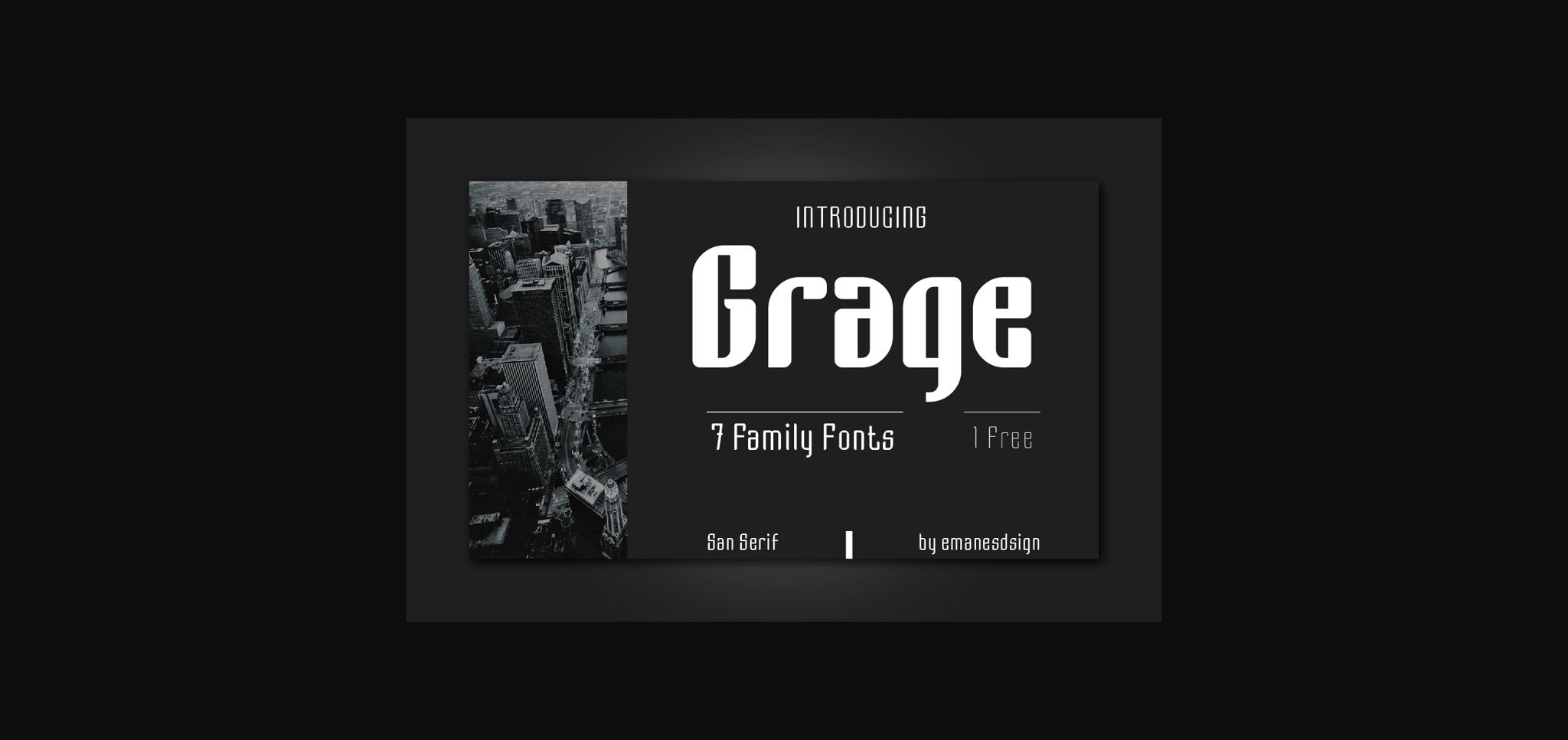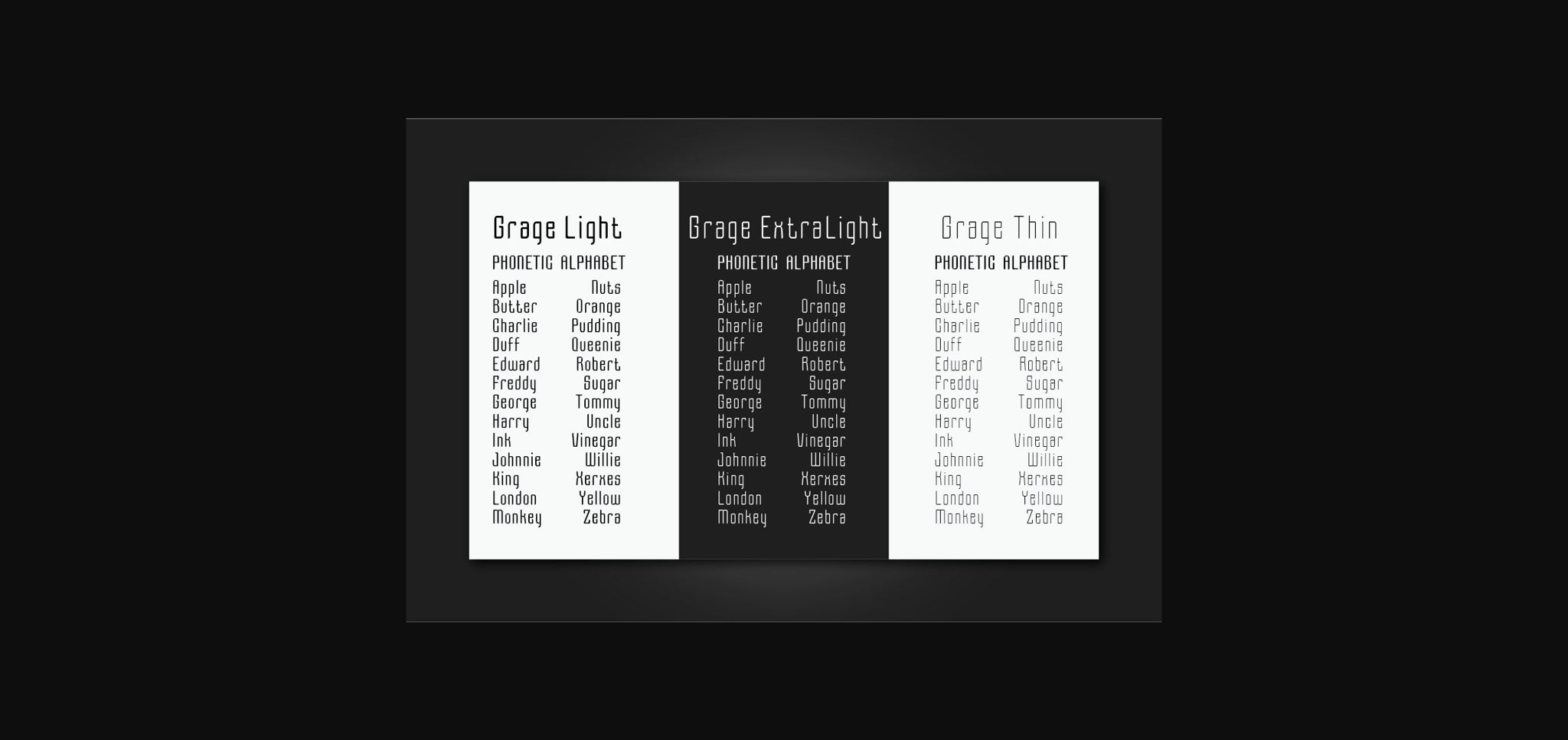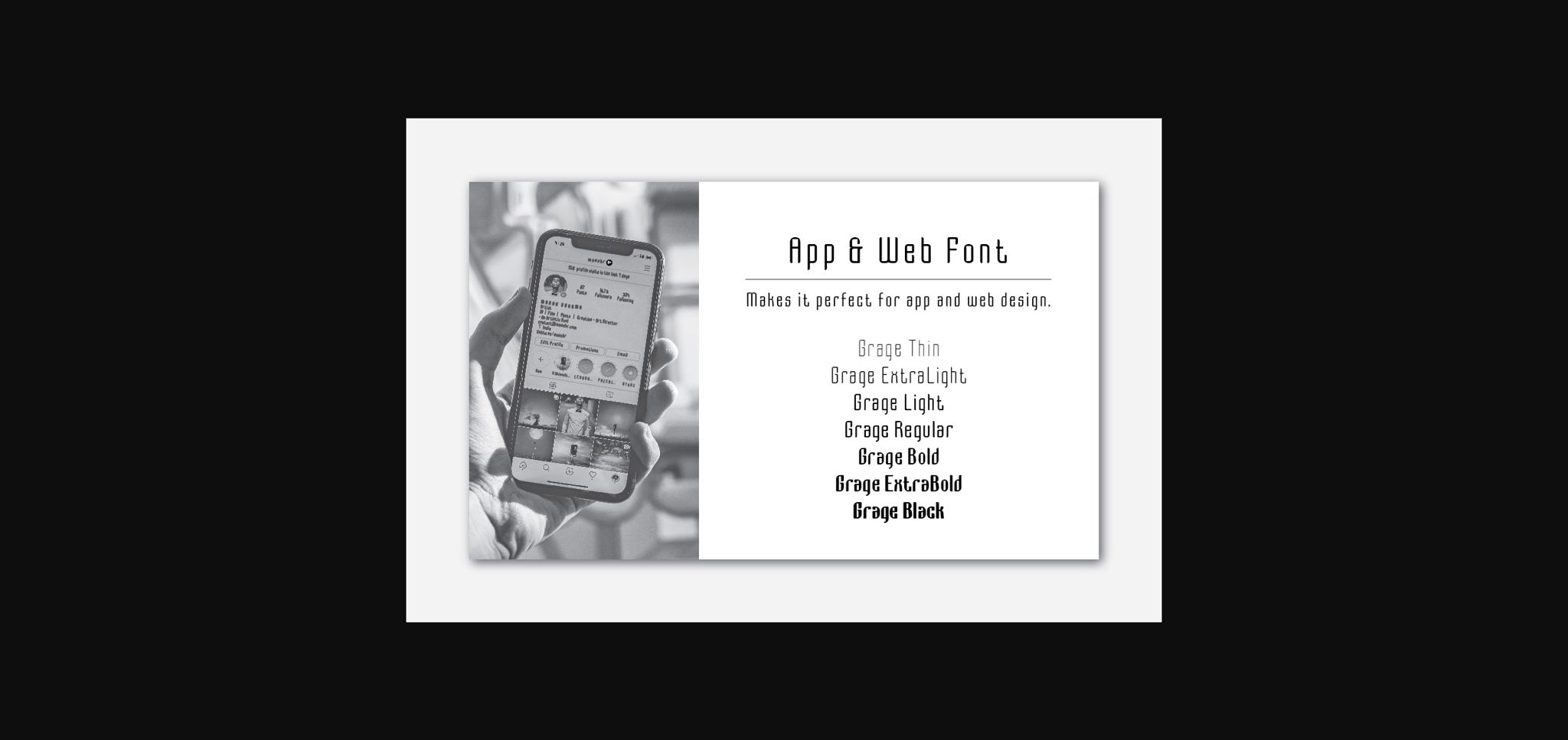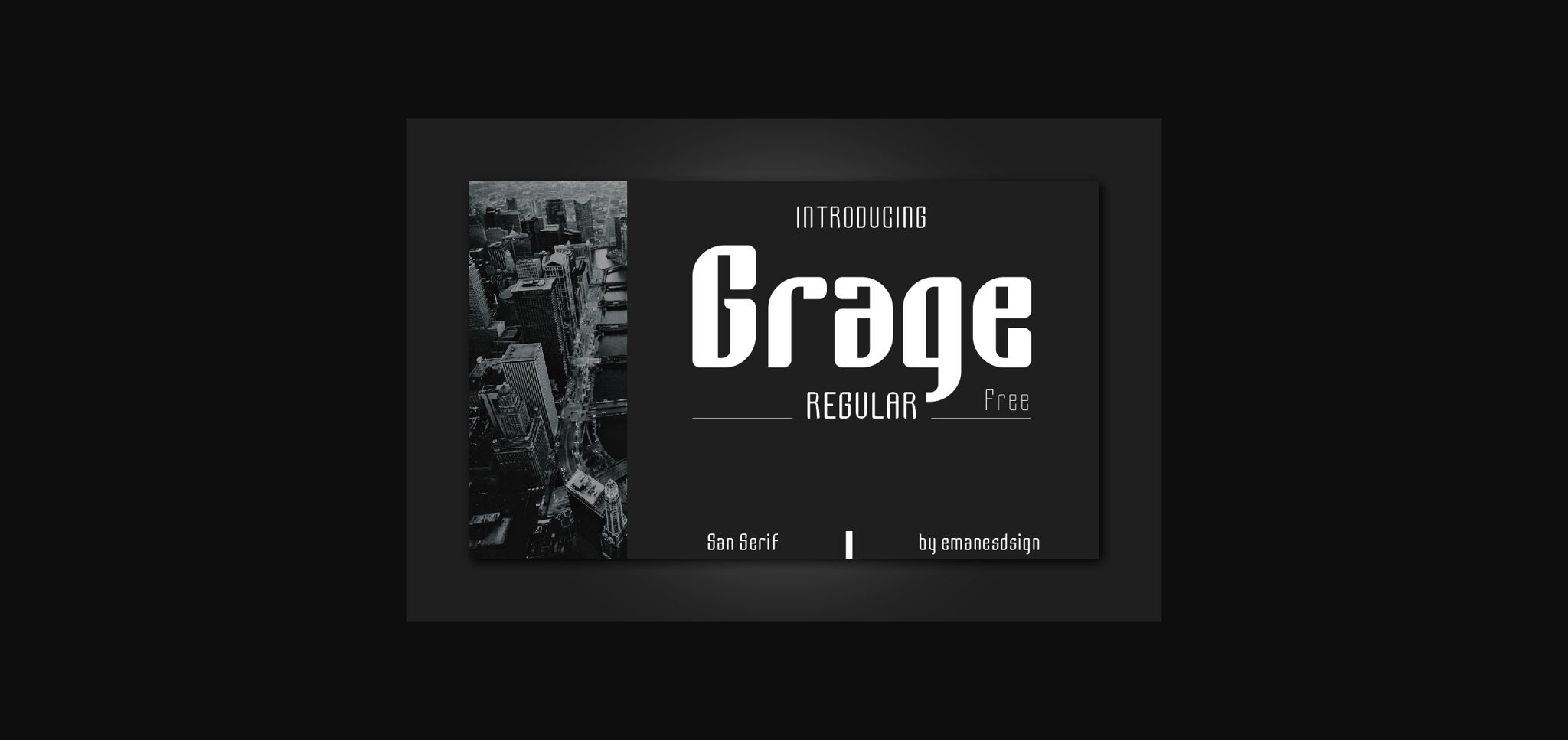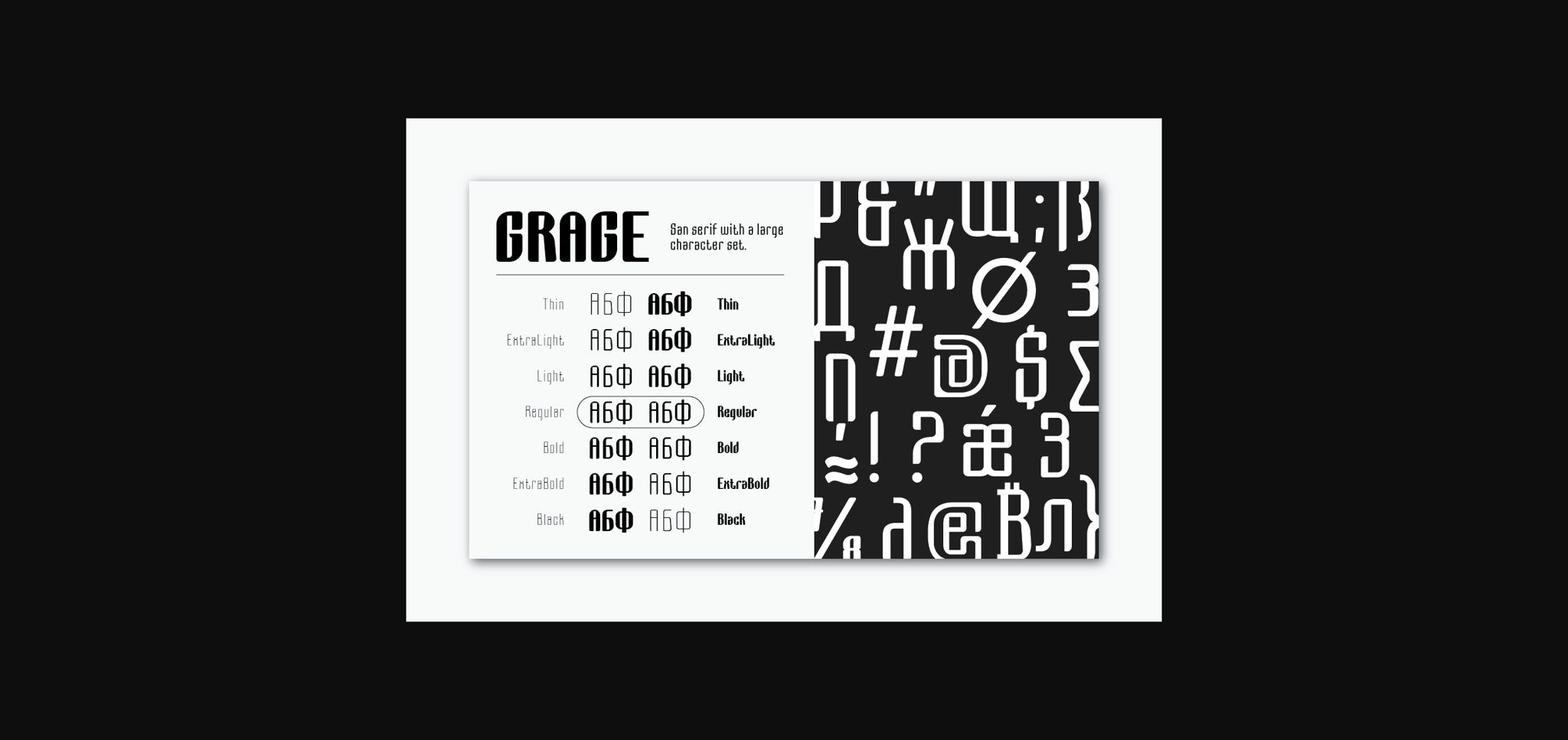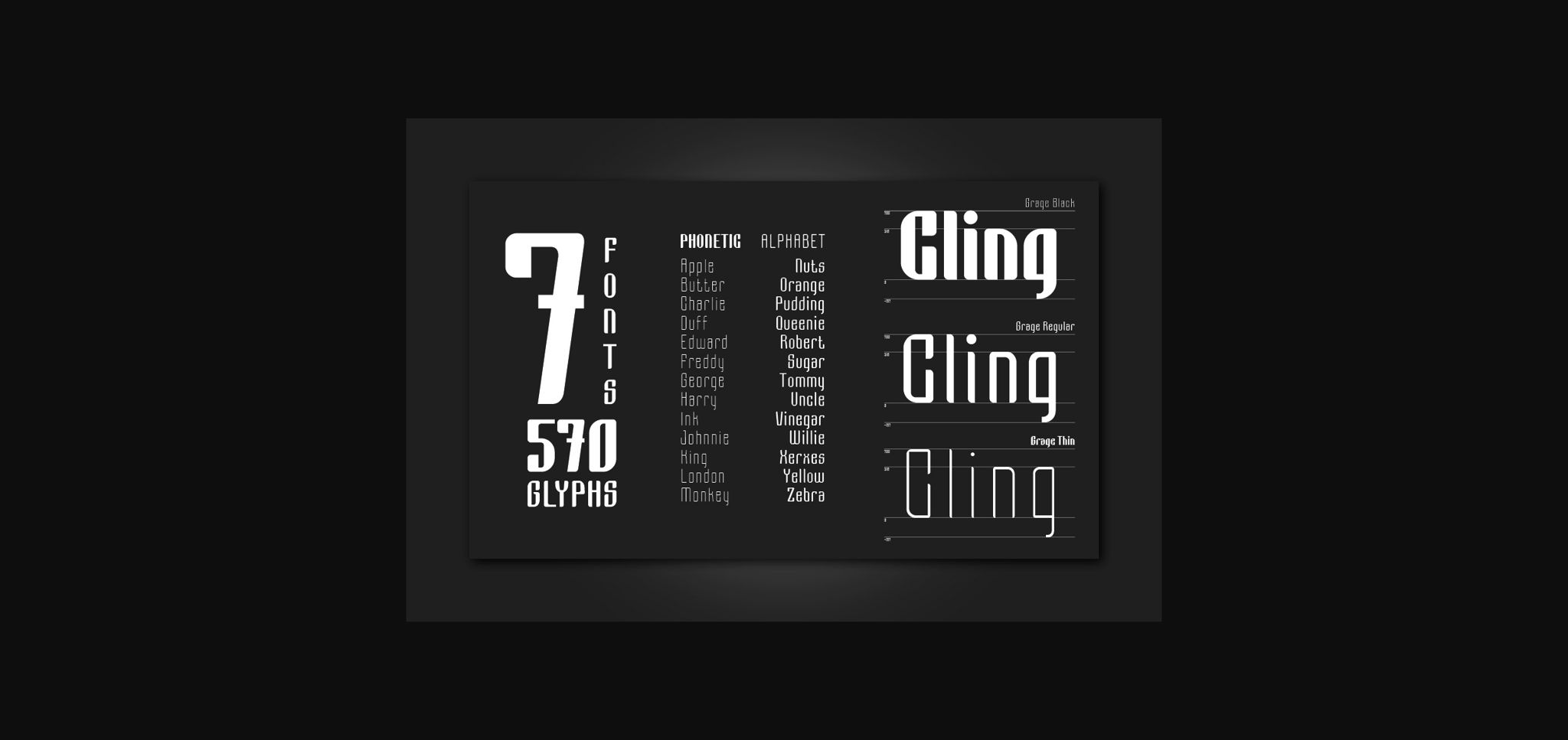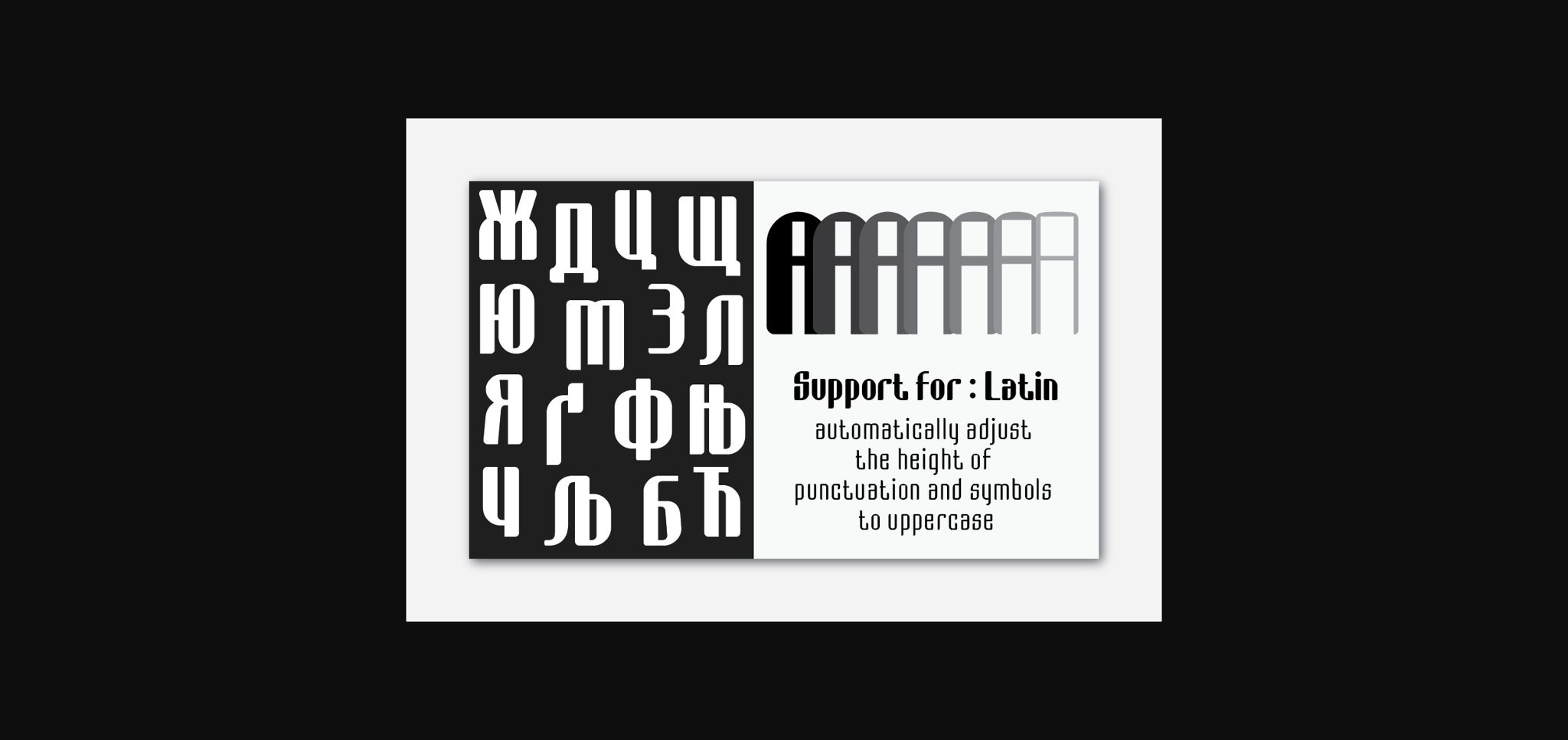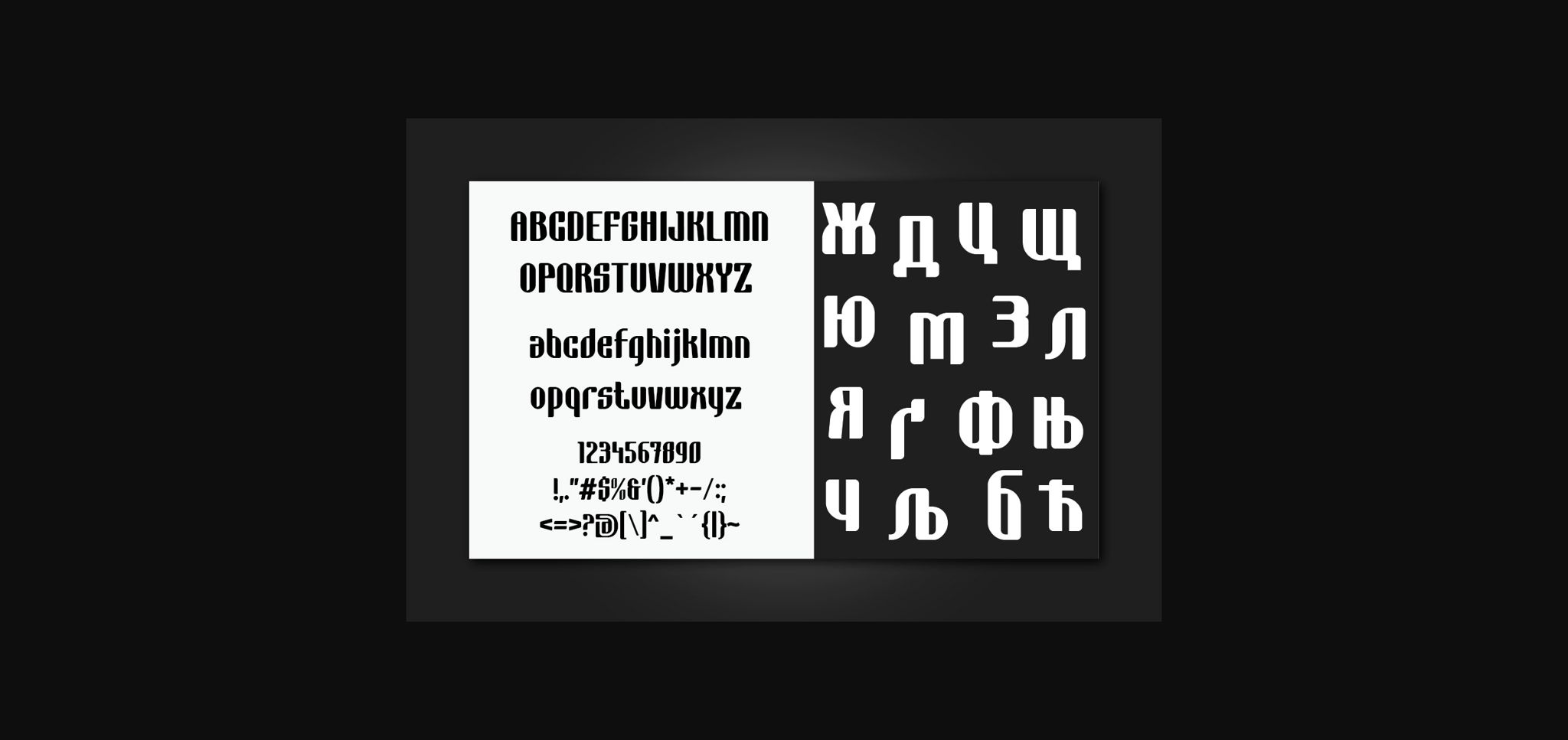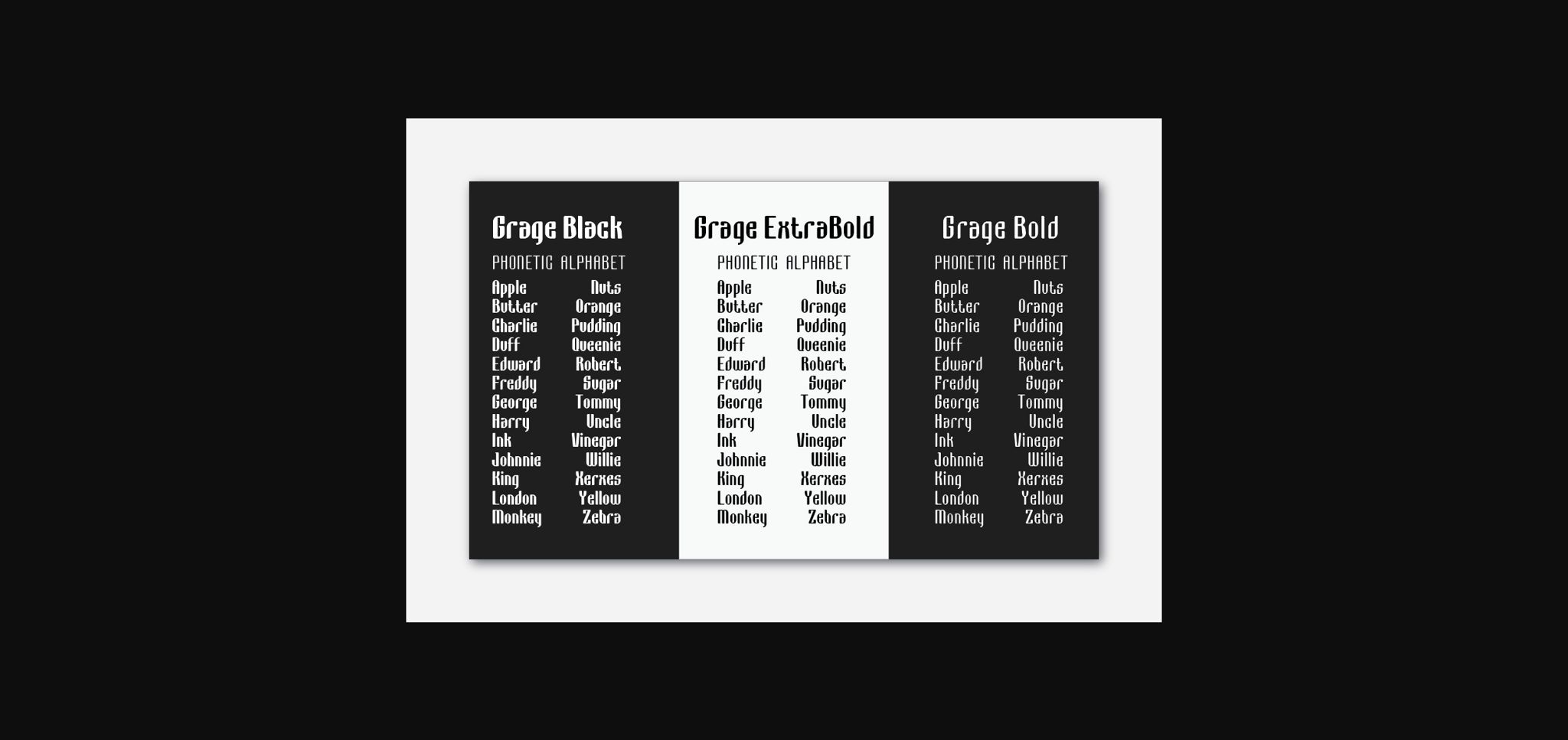
HomeSans Serif FontsGrage Font Sans Serif Fonts Grage Font FacebookXPinterestWhatsApp 1 of 11 ... Grage Font Poster 2... Grage Font Poster 3... Grage Font Poster 4... Grage Font Poster 5... Grage Font Poster 6... Grage Font Poster 7... Grage Font Poster 8... Grage Font Poster 9... Grage Font Poster 10... Grage Font Poster 11... About Grage Font Grage is a bold and unique sans serif font. Suitable to a wide variety of designs due to its neat and simple style, Grage has the potential to become your favorite go-to font, no matter the occasion! DOWNLOAD NOW People also explored Nocturnal Script Font Jandys Font Emertha Script Font Davy Jones Font Jumps Hill Font Jullyana Font Candella Font Last Night Font Gloria Spring Font 446 0 TagsGrageGrage Font Previous articleCagile FontNext articleAlbori Font LEAVE A REPLY Cancel reply Comment: Please enter your comment! Name:* Please enter your name here Email:* You have entered an incorrect email address! Please enter your email address here Website: Save my name, email, and website in this browser for the next time I comment. Personal Use Free Loving Personal Use Free Read more about this font Rakesly Personal Use Free Read more about this font Special Day Personal Use Free Read more about this font Geuli Font Personal Use Free Read more about this font BLOG Free vs Paid Fonts: Why Investing in Premium Fonts Is Worth It Free vs Paid Fonts: Why Premium Fonts Are Worth It in 2025 The debate of free vs paid fonts continues in the design world. While... Fonts That Capture the Spirit of New York City How to Cut Any Font on Cricut: Convert a Font to SVG (Free) Best Fonts for T-Shirt Design – Top 2025 Picks